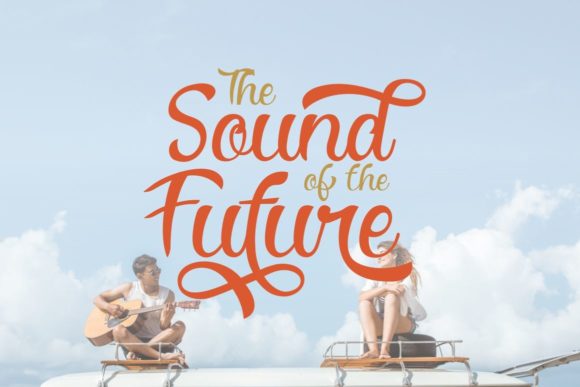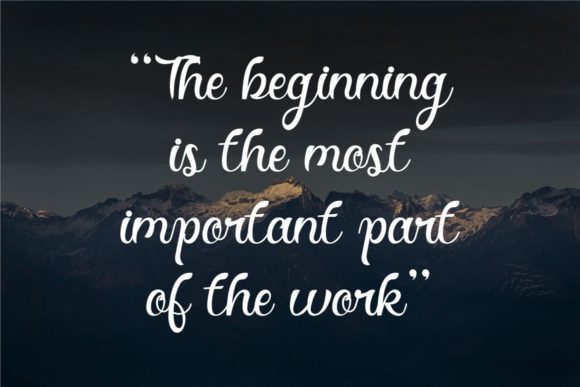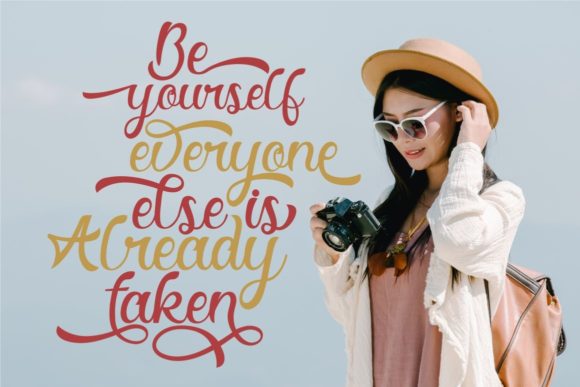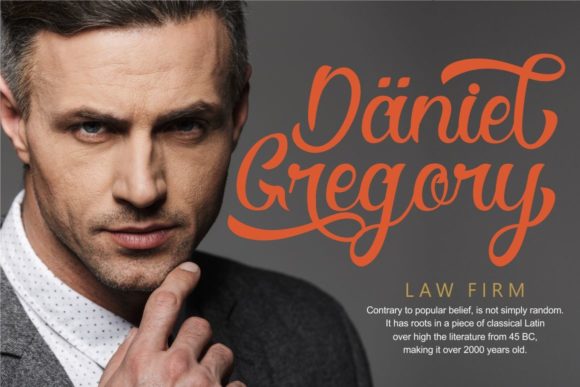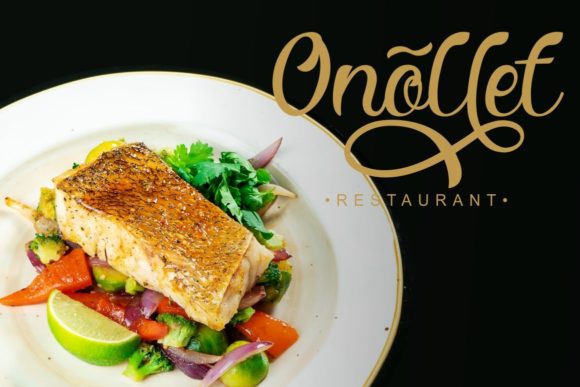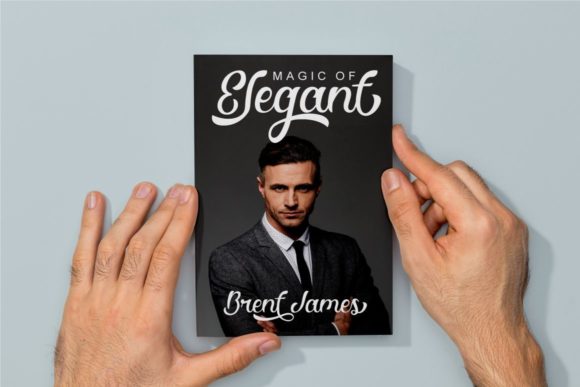
Discover the Allure of Binlay Font
There’s nothing quite like the thrill of finding the perfect font to elevate your design project. It’s like stumbling upon that hidden gem in a vintage store – you can almost hear the ‘aha’ moment echoing through your creative space. For those moments, we’ve got just the thing: the Binlay Font.
This ravishing script font is designed to make a statement, with its stylish flair and elegant curves. Whether you’re crafting a wedding invitation, a logo, or a social media post, Binlay Font is the perfect companion to help you create something truly special. And with its PUA encoding, you can easily access all the glyphs and swashes you need to add that extra oomph to your design. Whether you’re a seasoned designer or just starting out, Binlay Font is a valuable tool in your creative arsenal.
Binlay Font Key Features
- Unique Characteristics: Binlay Font features a modern, elegant script with subtle flair and fluid connections between letters.
- Language Support: Includes a wide range of languages, including Latin, Cyrillic, and Greek alphabets.
- Kerning and Ligatures: Optimized for seamless typographic experience, with carefully crafted kerning pairs and ligatures.
Binlay Font Review
Initially, I was drawn to the unique aesthetic of Binlay Font. ✨ The intricate details and curved lines evoke a sense of whimsy and playfulness. It’s perfect for projects that need a touch of personality.
The font’s versatility is another notable aspect. It can be used in a variety of contexts, from branding and logos to digital interfaces and print materials. ✨ The clean and minimalist design makes it easy to read and comprehend, even at smaller font sizes.
- Unique aesthetic and design
- Versatility in usage
- Clean and minimalist design
- Easy to read and comprehend
- ⚠️ Limited font sizes: At very small sizes, the font can become difficult to read due to the intricate details.
- ⚠️ Compatibility issues: Some users have reported issues with font rendering on certain devices and browsers.
Overall, I’d say Binlay Font is a great choice for projects that require a touch of creativity and personality. However, it’s essential to keep in mind its limitations and ensure it’s used in contexts where it will shine. With the right application, Binlay Font can be a valuable addition to any design arsenal.
Getting the Most Out of Binlay Font
Use Binlay Font for:
1. Headings and titles for its elegant and sophisticated look.
2. Quotes and text overlays for its unique and creative feel.
3. Branding and logos for its distinctive and memorable style.
Binlay Font is ideal for:
1. Creative and artistic projects.
2. Luxury and high-end branding.
3. Fashion and lifestyle designs.
Alternatives to Binlay Font
Cutive
Cutive is a modern sans-serif font suitable for digital and print media. It’s designed for body text, making it ideal for articles, blog posts, and other content that requires clear readability. Compared to Binlay Font, Cutive has a more subtle feel and is more legible at smaller font sizes.
Montserrat is a geometric sans-serif font that’s perfect for headings, titles, and other display text. It’s highly customizable and works well in various digital platforms. Unlike Binlay Font, Montserrat has a more modern and sleek appearance, making it ideal for modern designs and branding.
Lato is a sans-serif font that’s designed for body text and is highly legible at various font sizes. It’s a great alternative to Binlay Font for content-heavy designs, such as articles, blogs, and websites. Compared to Binlay Font, Lato has a more neutral feel and is highly customizable.
Open Sans is a modern sans-serif font that’s highly legible and works well in various digital platforms. It’s designed for body text and is a great alternative to Binlay Font for content-heavy designs. Compared to Binlay Font, Open Sans has a more neutral feel and is highly customizable, making it ideal for modern designs and branding.